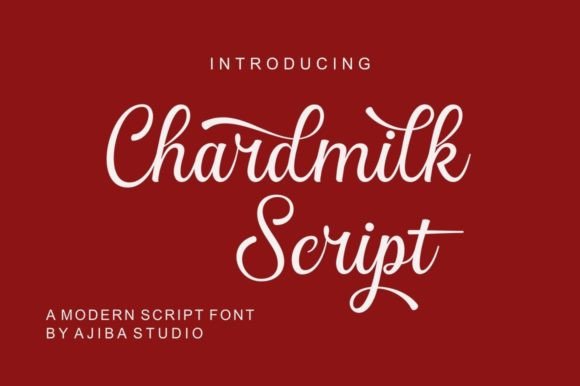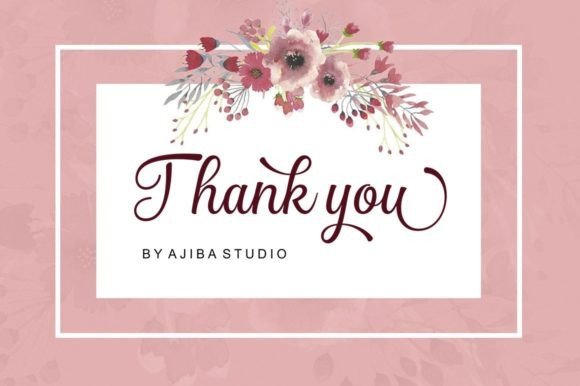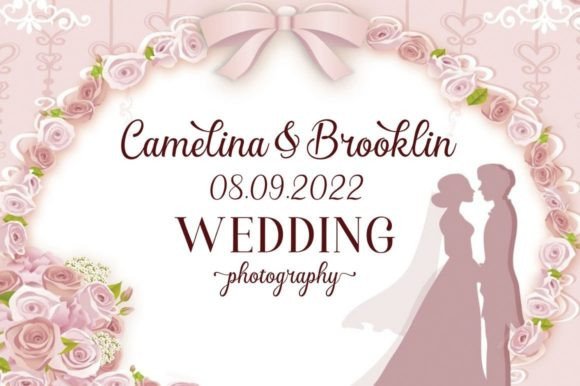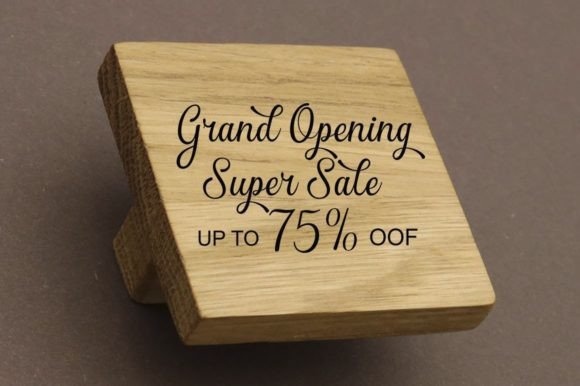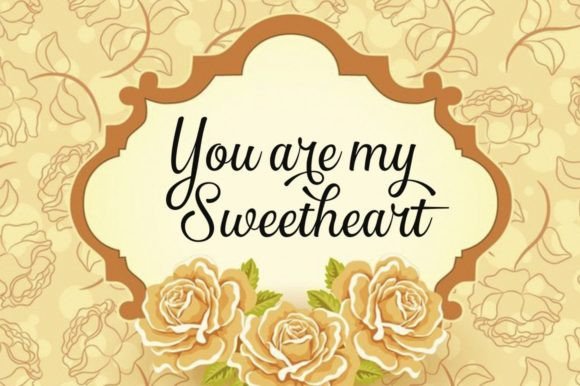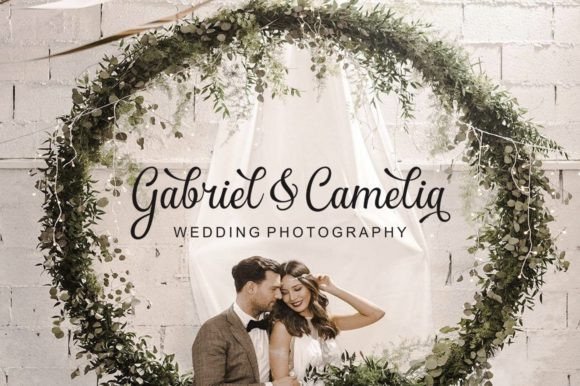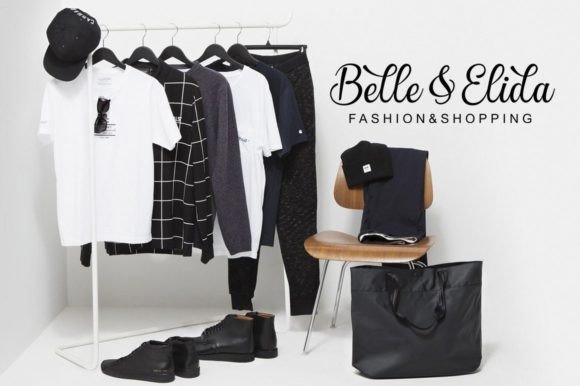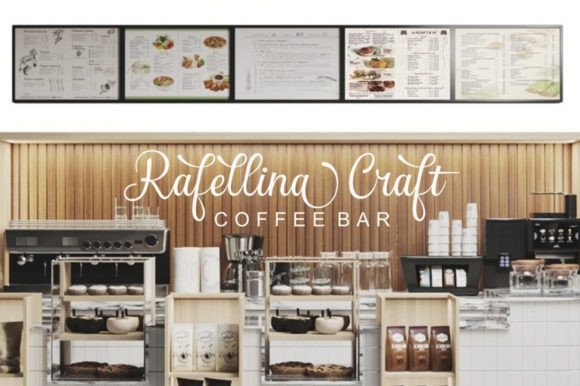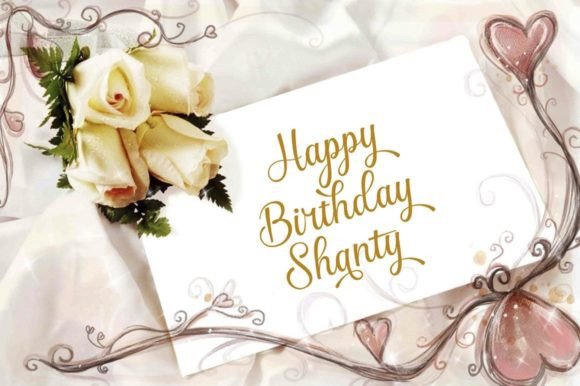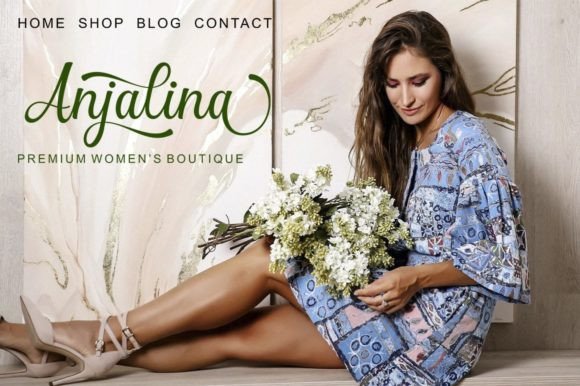
Chardmilk Script Font
About Chardmilk Script Font
Chardmilk Script emerges as a stunning and refined script font, weaving an air of sophistication into a myriad of design projects. Its allure is particularly pronounced on wedding invitations, thank you cards, quotes, greeting cards, logos, business cards, and any design endeavor seeking a bespoke touch. This font transcends the ordinary, offering a seamless blend of elegance and individuality.
Designed with precision, Chardmilk Script boasts a captivating aesthetic that transcends its functional role. The font’s versatility makes it a go-to choice for a diverse array of applications, from formal wedding invitations that demand a touch of class to business logos that require a unique signature. Its sleek lines and dazzling appearance ensure that any project adorned with Chardmilk Script exudes a refined charm.
One notable feature of Chardmilk Script is its PUA encoding, a technical attribute that enhances the user experience. PUA encoding enables effortless access to the font’s entire spectrum of glyphs and swashes, providing a rich palette for creative expression. This feature empowers designers to navigate and incorporate various elements seamlessly, fostering a bespoke and tailored outcome.
Imagine crafting a wedding stationery suite with Chardmilk Script, where each invitation becomes a work of art, personalized with swashes and glyphs that reflect the uniqueness of the couple. Picture a business card that not only communicates professionalism but also carries a distinctive, memorable touch, courtesy of this refined script font.